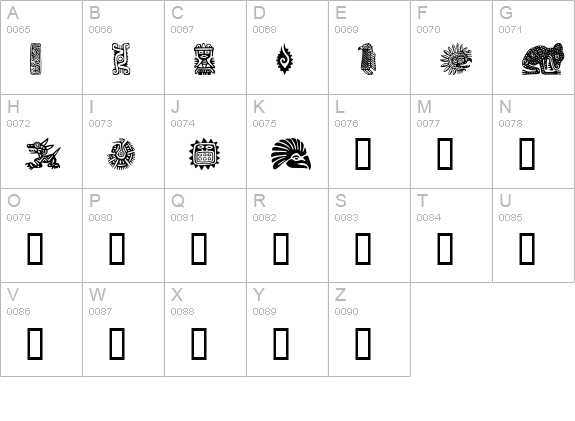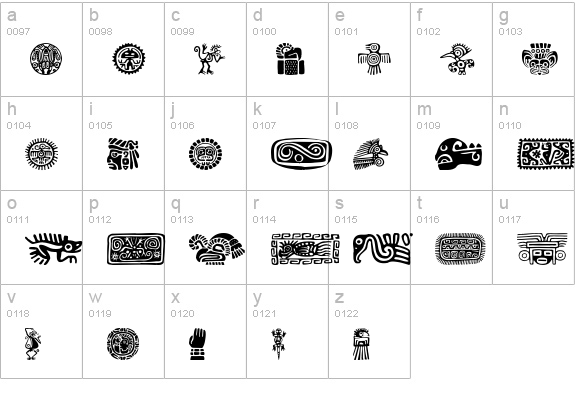
MexicanMotif Font Details
MexicanMotif font captures the essence of traditional Mexican art and culture with its intricate design inspired by indigenous motifs and vibrant colors. This unique font is a perfect blend of history and modernity, making it ideal for projects that require a touch of authenticity and creativity. With a wide range of characters and symbols, MexicanMotif font offers versatility and flexibility for various design purposes, from branding to editorial to decorative elements. Its bold and eye-catching appearance is sure to make a statement and leave a lasting impression on viewers. Best of all, MexicanMotif font is available for free download at FontsMarket.com, allowing designers and creatives to access this captivating typeface without any cost. Add a touch of Mexican flair to your projects with MexicanMotif font and let your creativity shine.